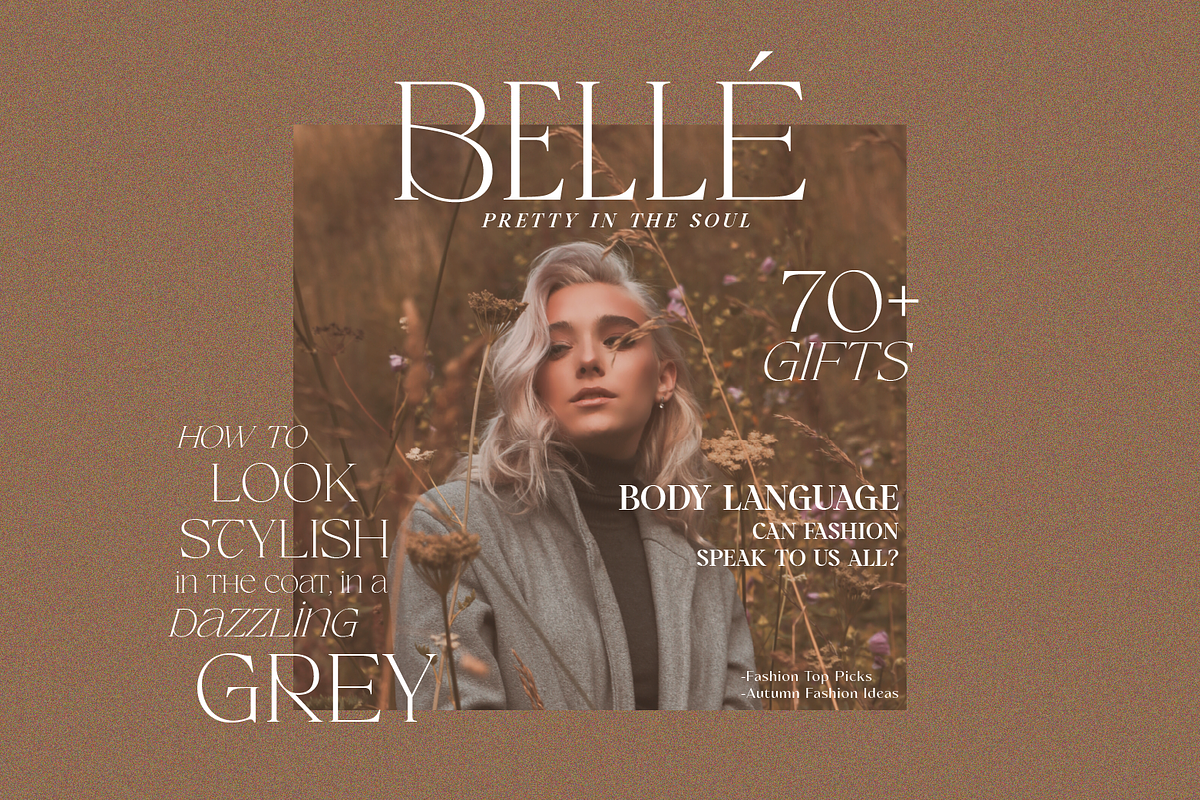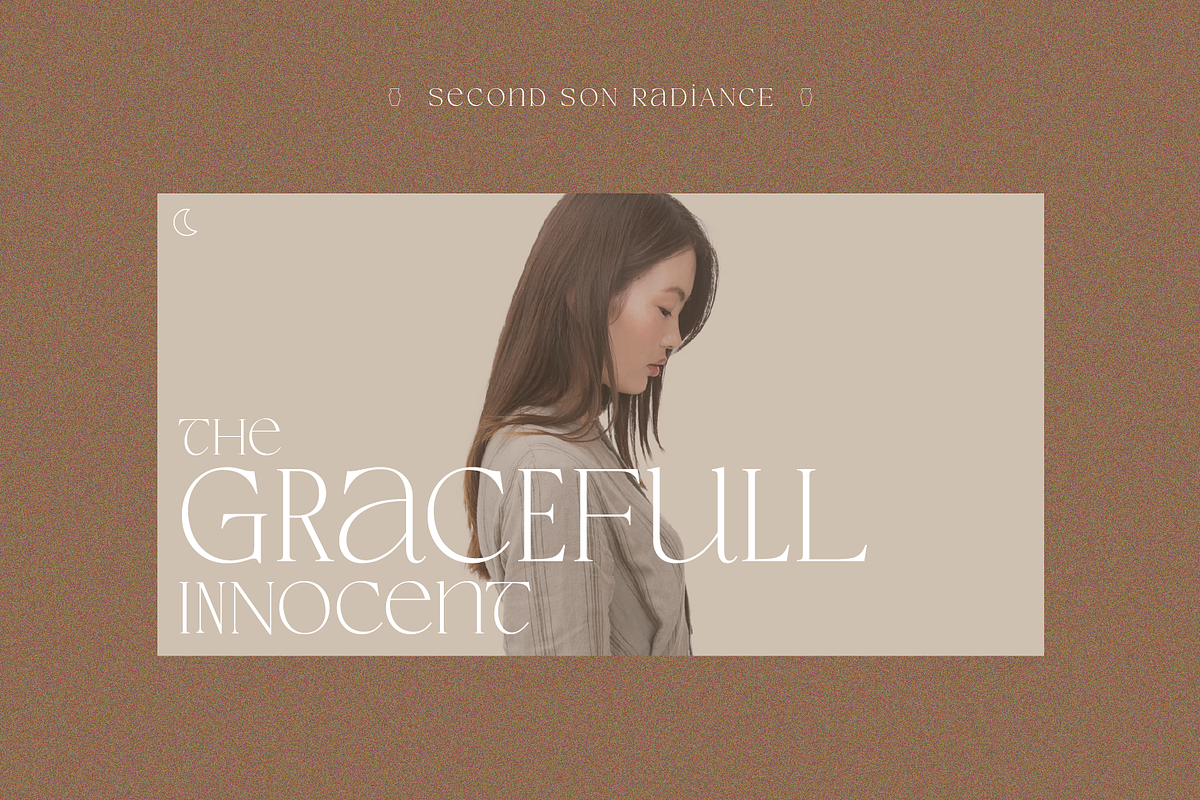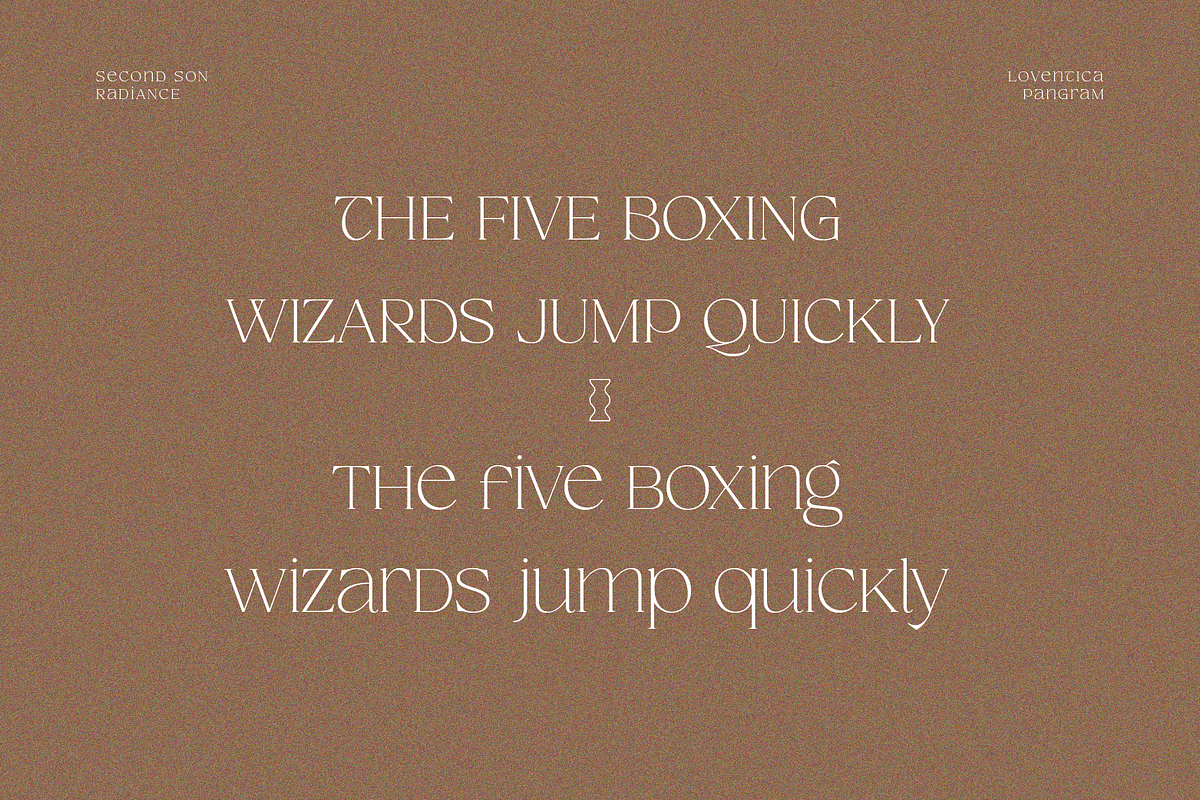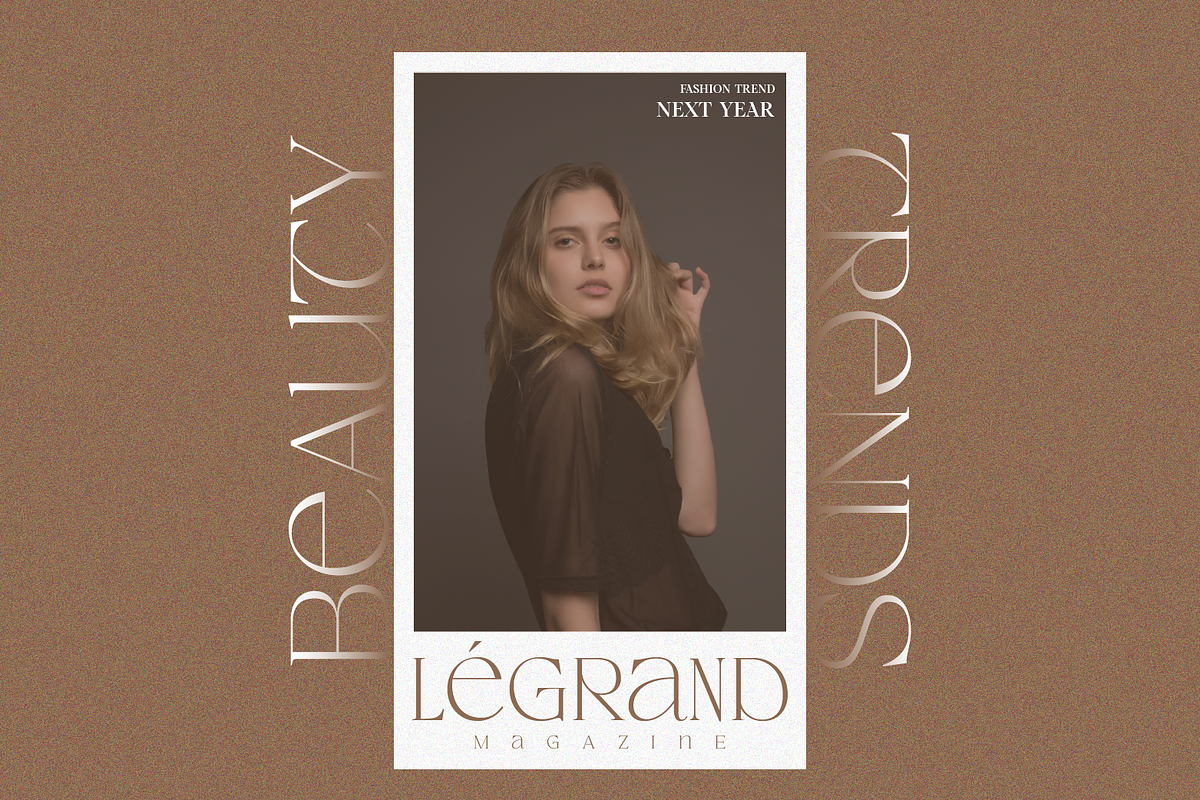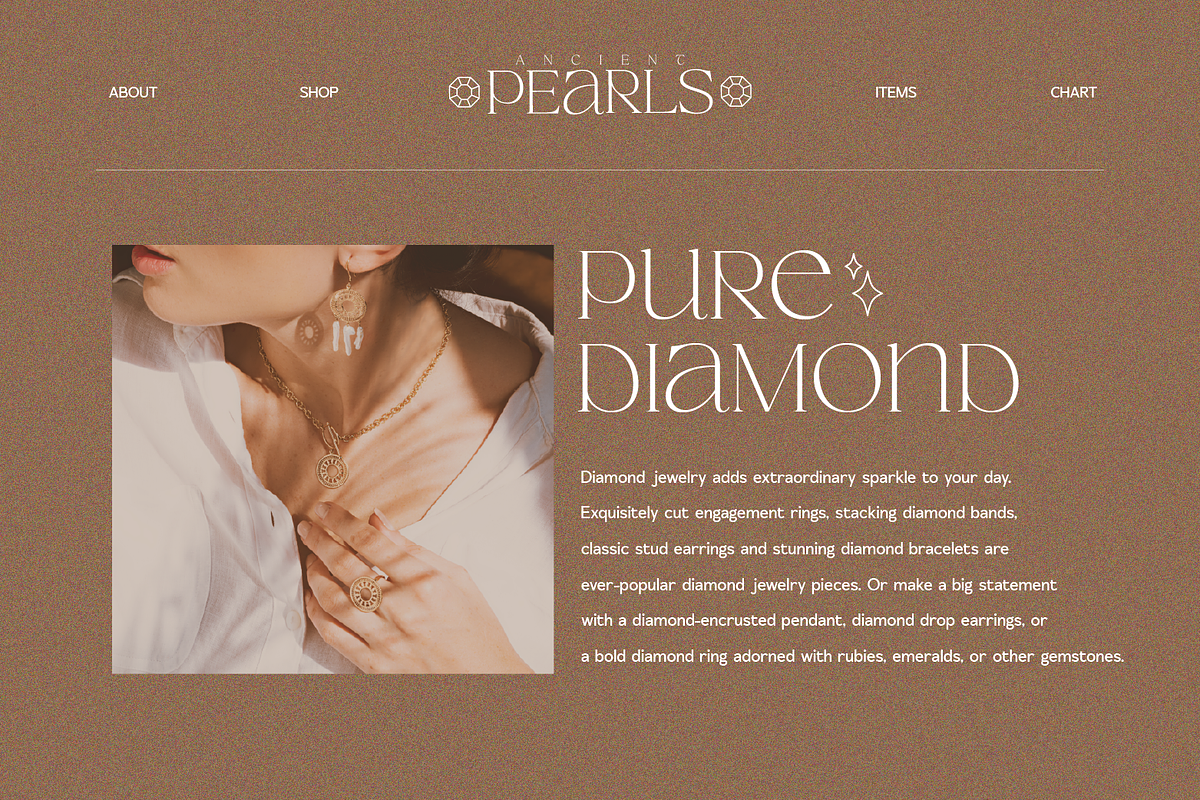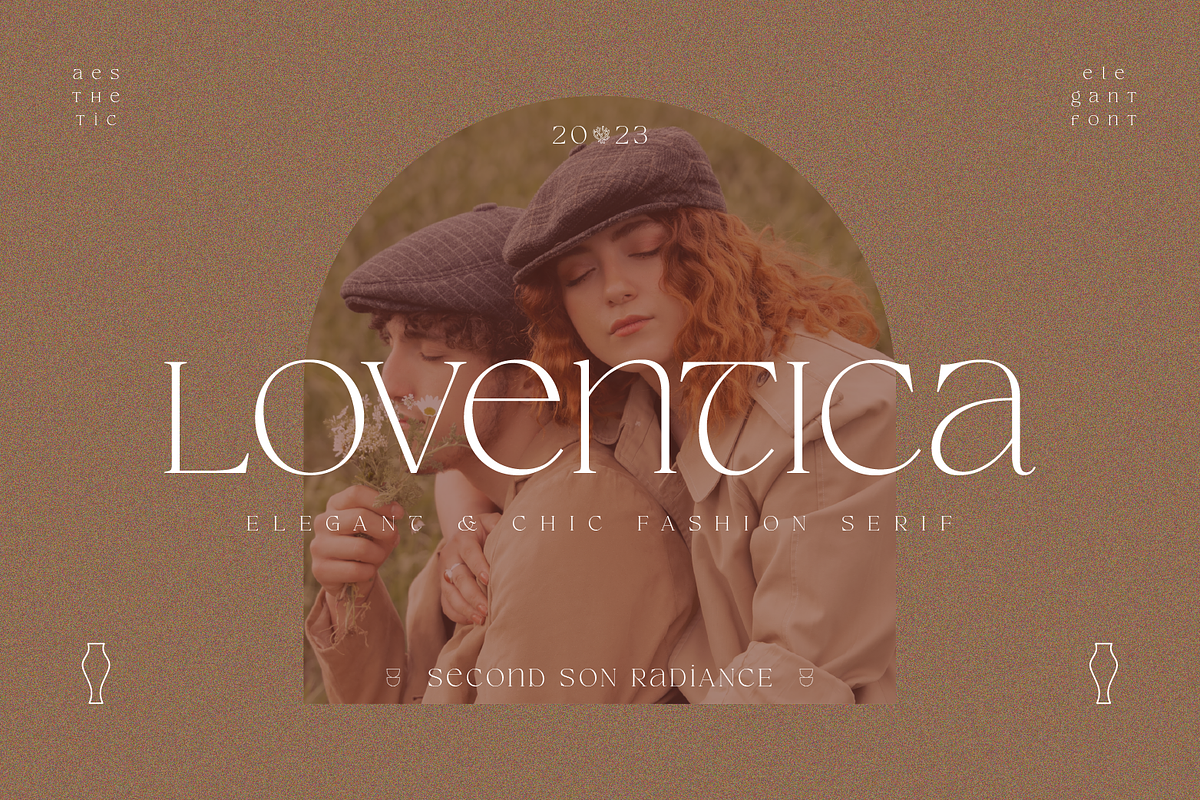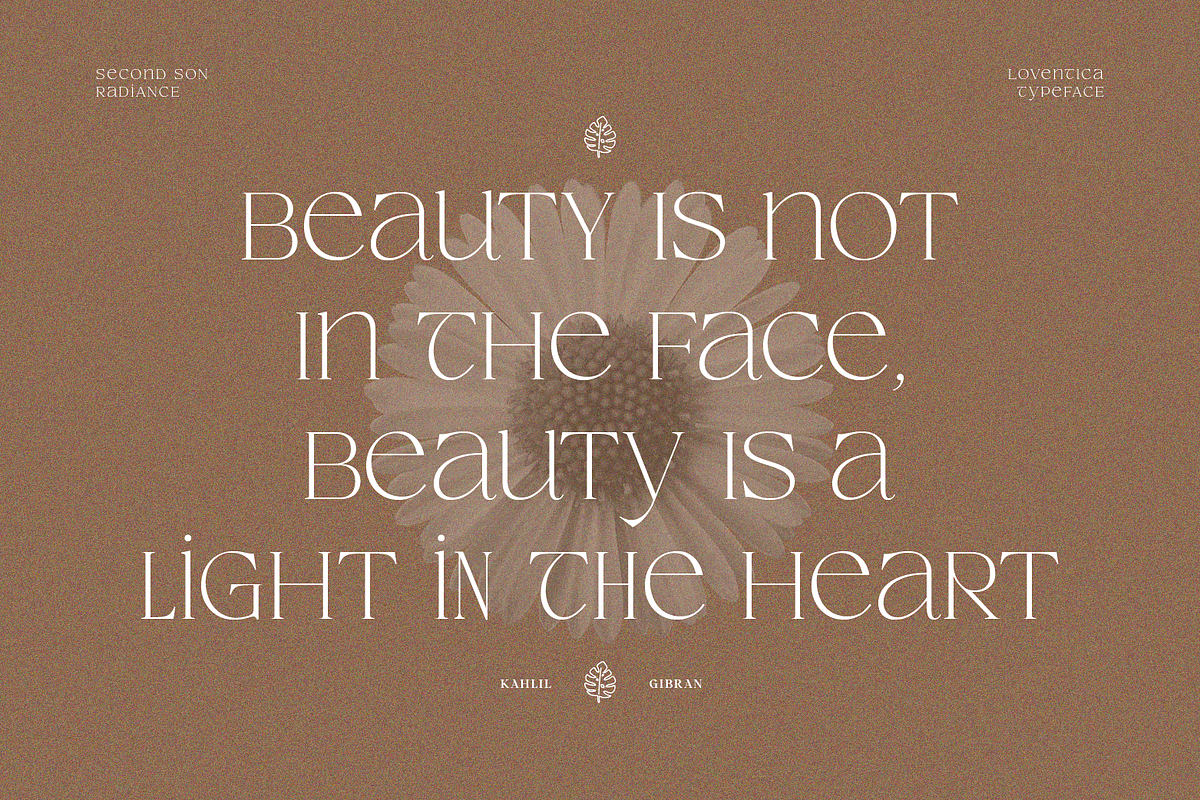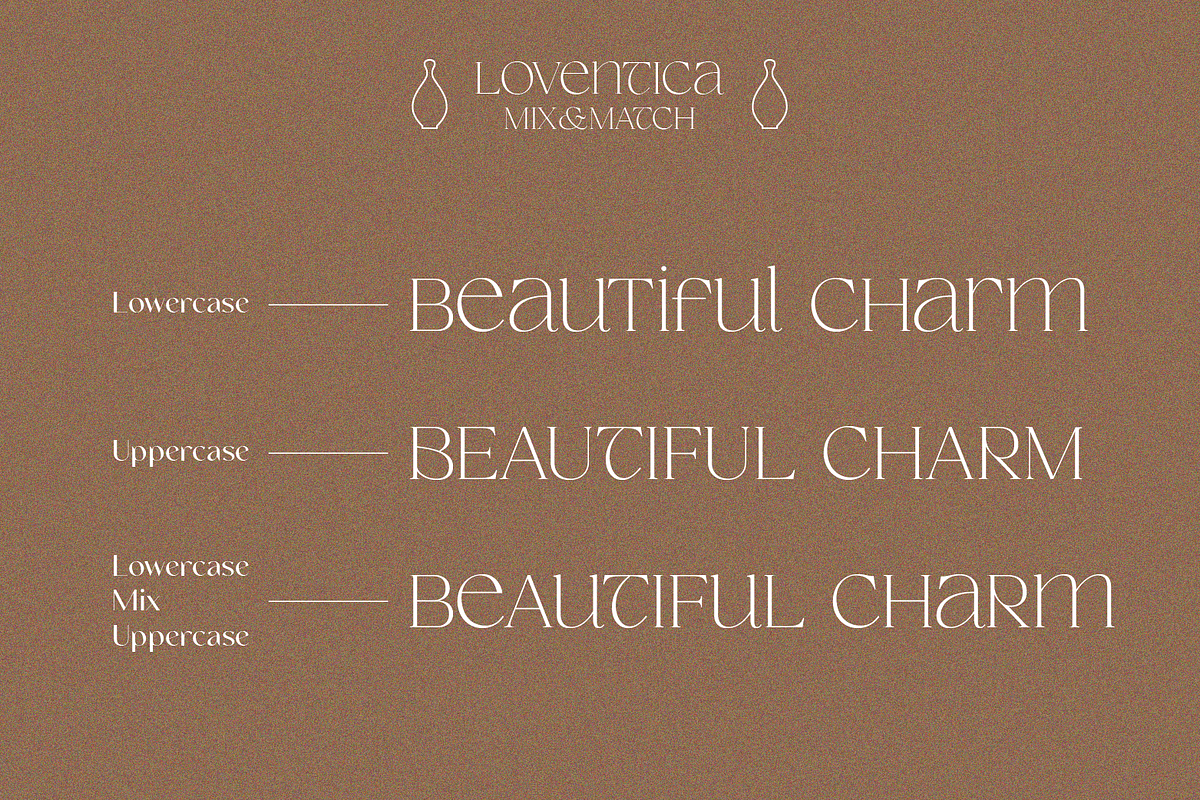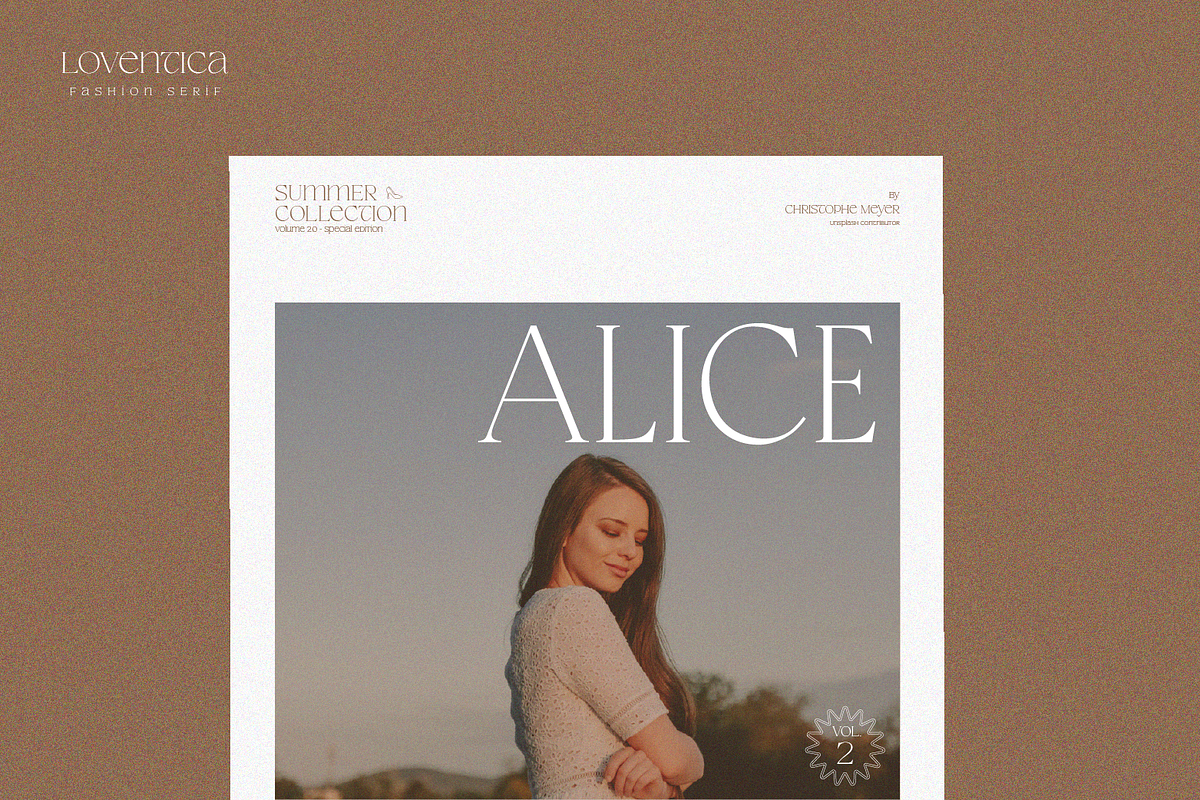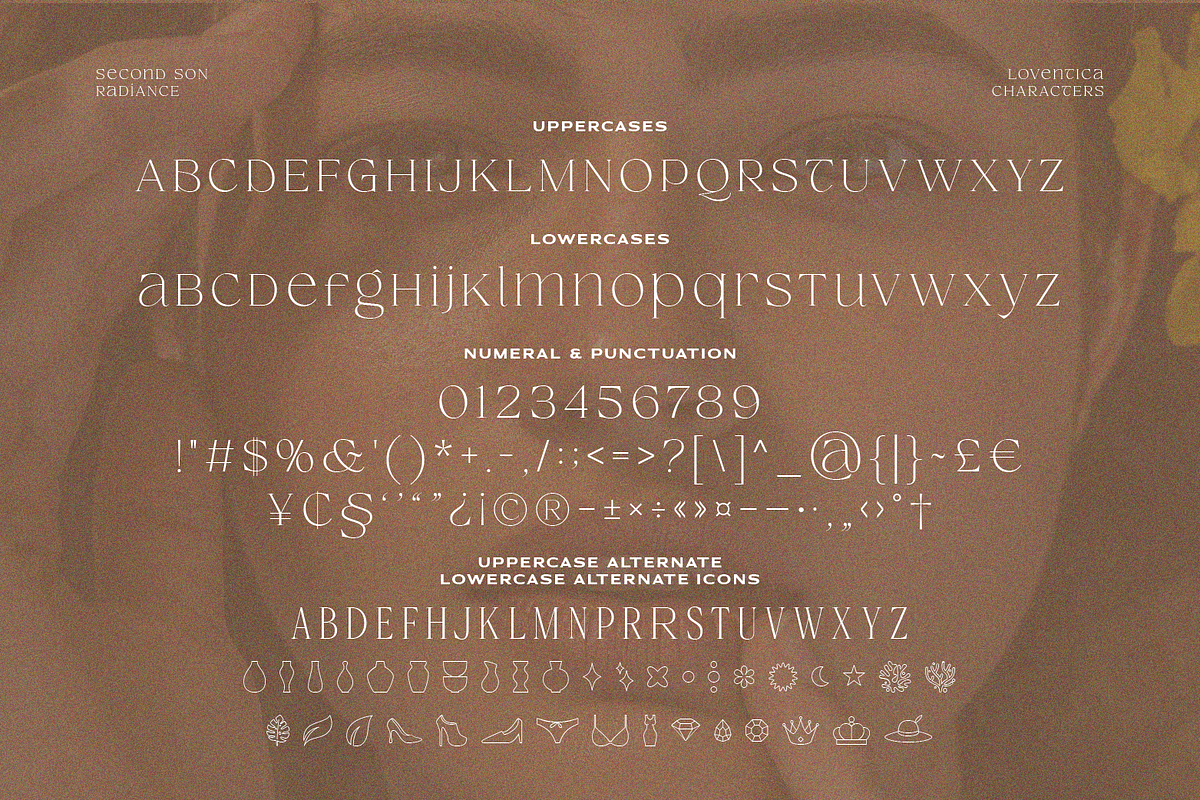
SS Loventica - Chic Elegant Serif
Loventica - Beauty Fashion Serif - Chic and Elegant Font
Loventica is a beauty fashion serif font with a touch of elegance and charm. With same height for uppercase and lowercase, you can mix and match as you wish. Comes with condensed alternates and symbols It is perfect for your upcoming projects such as luxury logo and branding, classy editorial designs, woman’s magazines, cosmetic brands, art gallery branding, boutique branding, stationery design, blog design, modern advertising designs, card invitations, art quotes, home decor, book/cover titles, special events, and more. Loventica also support multilingual!
- Condensed Alternates